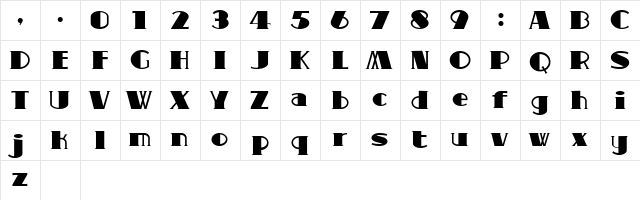
Comic Bold
Design Context for Comic Typeface
Comic has an approachable, lighthearted character — its loose, expressive forms are well-suited to children's content, casual branding, and fun-first design.
Font Pairing: Pairs well with a rounded or humanist sans for body copy, maintaining the friendly tone without relying on Comic to carry extended reading.
Pro Tip: Use Comic at larger display sizes where its expressive character can land. Pair with a clean, simple sans for body copy to maintain readability.